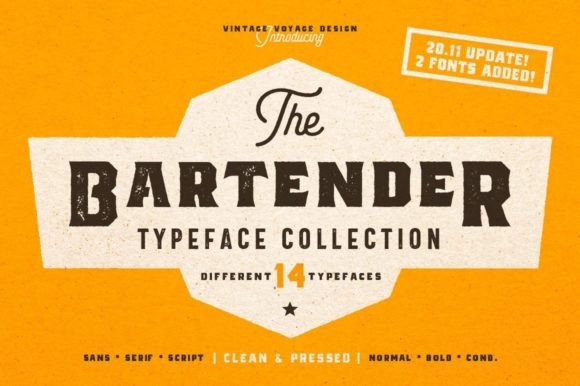
**Embark on a Typographic Adventure with The Bartender Font: Your Passport to Design Brilliance**
In the realm of visual communication, fonts hold the power to transform ordinary words into captivating expressions. They set the tone, evoke emotions, and create a lasting impression on your audience. Among the myriad of font families, The Bartender Font emerges as a true masterpiece, a symphony of elegance and versatility that will elevate your design projects to new heights.
**A Timeless Treasure: The Allure of The Bartender Font**
The Bartender Font is a script font that exudes the charm and sophistication of a bygone era. Its graceful curves and flowing lines evoke a sense of nostalgia and romance, making it the perfect choice for projects that aim to capture the essence of the past. Whether you're designing a vintage-inspired poster, a heartfelt wedding invitation, or a captivating logo, The Bartender Font will add a touch of timeless beauty and elegance.
**A Font for Every Occasion: The Versatility of The Bartender Collection**
The Bartender Font is more than just a single typeface; it's a versatile collection that offers a wide range of styles to suit any project. From the classic serif fonts that exude a sense of authority and tradition to the modern sans serif fonts that radiate a sleek and minimalist vibe, The Bartender Collection has something for everyone. And with the addition of pressed-style fonts, you can add a unique and eye-catching texture to your designs.
**Create Designs that Speak Volumes: The Power of The Bartender Font**
With The Bartender Font at your disposal, you'll have the creative freedom to craft designs that speak volumes. Whether you're creating a poster that demands attention, a t-shirt that makes a statement, or a print that captivates the imagination, The Bartender Font will help you convey your message with impact and style. Its versatility extends beyond traditional print media, as it also shines in digital designs, social media posts, and web graphics.
**Make Your Mark with The Bartender Font: A Legacy of Design Excellence**
Choose The Bartender Font and unlock a world of creative possibilities. Let its timeless elegance transport your audience to another era, let its versatility fuel your imagination, and let its power help you create designs that leave a lasting impression. With The Bartender Font, you'll have the tools you need to make your mark in the world of design. Embrace the beauty of typography and embark on a creative journey that will redefine your design horizons. Purchase The Bartender Font today and elevate your design projects to new levels of excellence.